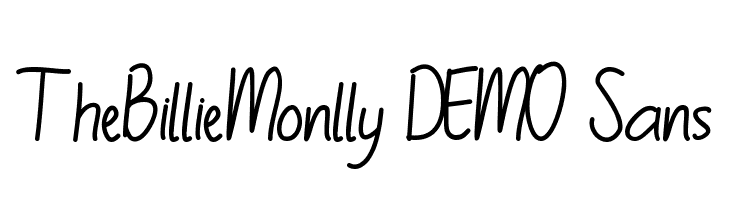
A playful, handwritten font with smooth, flowing lines and a casual style.
A modern, semi-bold sans-serif font with clean lines and rounded edges.
A bold, expanded italic font with a modern and dynamic style.
A bold, dynamic brush script font with sweeping strokes and a lively, informal style.
A bold, italicized font with geometric angles and high contrast, perfect for dynamic designs.
An elegant script font with flowing, calligraphic strokes and a modern touch.
A dynamic and elegant script font with fluid, cursive strokes.
A dynamic brush-style font with bold, expressive strokes and an artistic flair.
A lively, handwritten-style font with bold, expressive strokes.
An elegant and flowing script font with ornate uppercase letters and graceful lowercase forms.